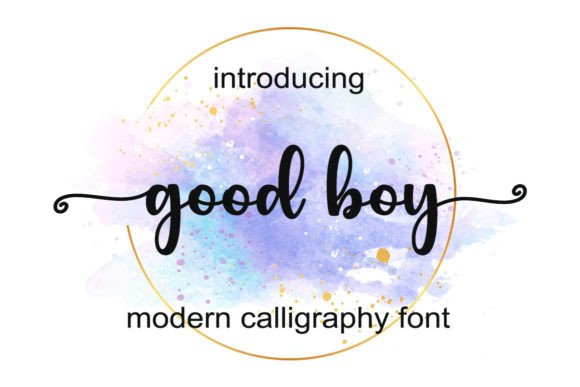
Introducing Good Boy Font: The Ultimate Script Font for Designers and Crafters
Are you tired of using the same old fonts for your design projects? Look no further! Good Boy Font is here to revolutionize your designs with its enchanting script style. This beautiful font is perfect for a wide range of applications, from logos and branding to quotes, clothing, tote bags, business cards, websites, and many more. In this article, we’ll dive into the features and benefits of Good Boy Font, and explore how it can take your projects to the highest level.
What is Good Boy Font?
Good Boy Font is a stunning script font that is designed to add a touch of elegance and sophistication to your designs. Its unique and flowing script style makes it perfect for creating beautiful logos, branding materials, and other visual elements. Whether you’re a designer, crafter, or DIY enthusiast, Good Boy Font is sure to become your go-to font for all your design needs.
Key Features of Good Boy Font
- Enchanting Script Style: The font features a beautiful, flowing script style that is perfect for creating elegant and sophisticated designs.
- Versatile: Good Boy Font is versatile and can be used for a wide range of applications, from logos and branding to quotes, clothing, tote bags, business cards, websites, and many more.
Benefits of Using Good Boy Font
So, why should you choose Good Boy Font for your design projects? Here are just a few benefits of using this amazing font:
- Adds Elegance and Sophistication: Good Boy Font adds a touch of elegance and sophistication to your designs, making them stand out from the crowd.
- Increases Versatility: The font’s versatility means you can use it for a wide range of applications, from logos and branding to quotes, clothing, tote bags, business cards, websites, and many more.
- Perfect for Designers and Crafters: Good Boy Font is perfect for designers, crafters, and DIY enthusiasts who want to add a professional touch to their designs.
Examples of Good Boy Font in Action
Good Boy Font can be used in a wide range of applications, from logos and branding to quotes, clothing, tote bags, business cards, websites, and many more. Here are a few examples of how you can use Good Boy Font in your designs:
- Logos and Branding: Use Good Boy Font to create a beautiful and elegant logo for your business or brand.
- Quotes and Posters: Use the font to create stunning quotes and posters that are perfect for social media, blogs, or print.
- Clothing and Accessories: Use Good Boy Font to create custom clothing and accessories, such as t-shirts, tote bags, and hats.
- Business Cards and Stationery: Use the font to create professional business cards and stationery that make a great impression.
In conclusion, Good Boy Font is an enchanting script font that is perfect for designers, crafters, and DIY enthusiasts. Its unique and flowing script style, PUA encoding, and versatility make it a must-have font for any design project. Whether you’re creating logos, branding materials, quotes, clothing, tote bags, business cards, websites, or more, Good Boy Font is sure to take your projects to the highest level. So why wait? Fall in love with Good Boy Font today and start creating stunning designs that impress!